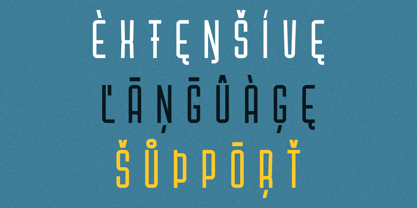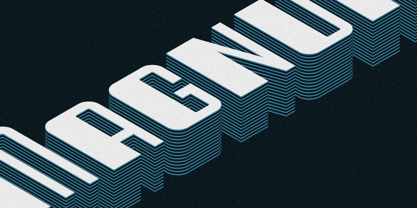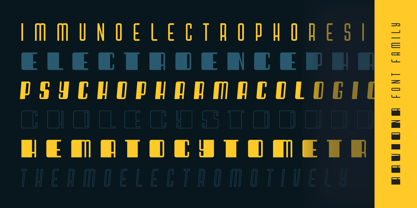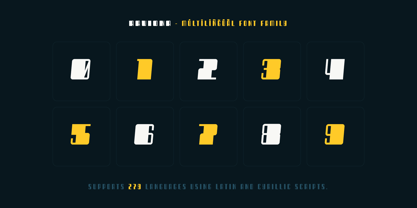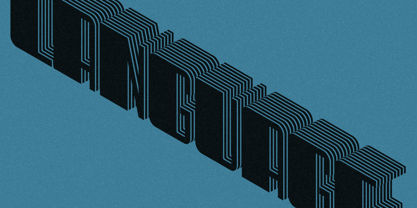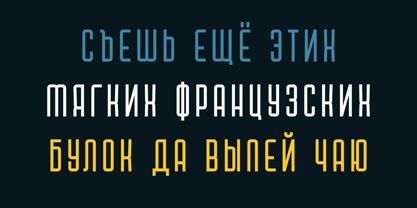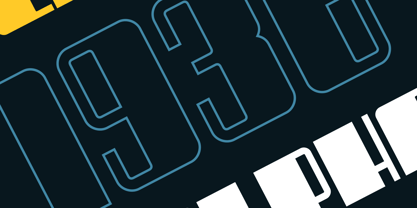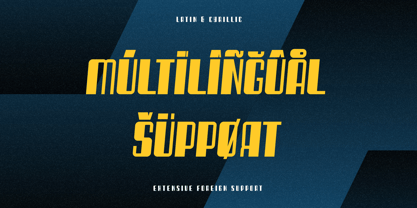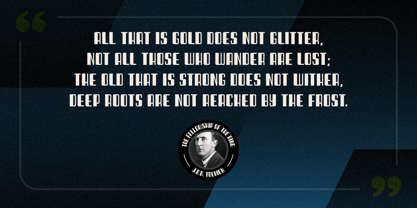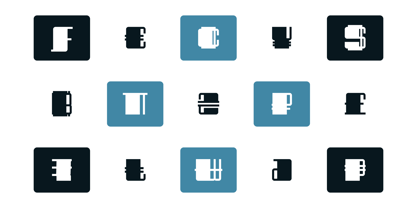
Raviona
by AlperCakici
The Raviona Font Family was designed by Alper Çakıcı and published by AlperCakici. Raviona contains 44 styles and family package options. More about this family
Meet Raviona — a geometric sans with personality. Clean, rounded, and confidently sharp, Raviona moves effortlessly between minimalist elegance and bold modern design. This flexible family includes 44 fonts (11 weights with matching italics), giving you endless room to play — from whisper-thin lines to powerful ultra-black headlines. Raviona’s precise geometry and smooth curves make it ideal for logos, branding, packaging, posters, and digital design. Every detail has been shaped for visual harmony — balanced proportions, smooth connections, and just the right amount of edge. Raviona supports over 279 languages, including Cyrillic, making it ready for global brands and international projects. ✨ 44 fonts (11 weights + italics) Rounded and geometric with sharp precision Perfect for modern, clean branding Full Latin + Cyrillic support Raviona is where geometry meets emotion — a typeface that’s as versatile as it is distinctive.
Designers: Alper Çakıcı
Foundry: AlperCakici